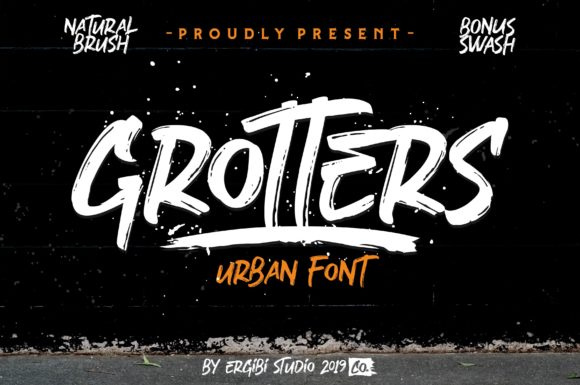
Grotters Font
Grotters Font is perfect for urban architecture firms, industrial design companies, modern manufacturing branding, contemporary construction signage, progressive engineering communications, robust technology interfaces, strong corporate identities, municipal infrastructure projects, solid business presentations, and reliable service organizations.
Grotters Font creates excitement because it embodies the structural strength and industrial reliability of modern engineering with its bold letterforms and construction-inspired character design. The font's sturdy proportions and industrial aesthetic instantly convey durability and professional competence, making any brand appear solid and authentically built for performance. Its carefully engineered structural details and robust character create an immediate sense of industrial confidence that captivates audiences seeking reliable solutions, durable quality, and products that celebrate the transformative power of strong engineering and industrial excellence.
This powerful typeface brings the authentic spirit of industrial design into contemporary business environments with remarkable strength and engineering appeal. Grotters Font Free Download provides industrial companies and engineering organizations with access to premium construction-inspired typography that embodies the essence of structural reliability and industrial craftsmanship. The font's robust design and industrial authenticity make it ideal for businesses seeking to establish meaningful connections with engineering audiences and industrial communities who appreciate structural integrity, manufacturing excellence, and the transformative power of solid construction principles. Whether you're creating branding for construction companies, designing materials for manufacturing firms, developing communications for engineering services, or producing content for industrial organizations, this font delivers the solid atmosphere that resonates with audiences seeking genuine reliability, structural quality, and the industrial confidence that comes from proven engineering excellence. Its versatile design ensures outstanding performance across both heavy-duty industrial applications and professional business communications while maintaining the character of authentic industrial typography. The font excels in applications requiring engineering credibility and industrial appeal. Manufacturing professionals appreciate its ability to convey structural strength while remaining highly functional for various industrial communications and engineering promotional materials. The comprehensive character set includes technical symbols and extensive international language support, making it perfect for global industrial brands and international engineering organizations seeking to communicate authentic structural values, manufacturing excellence, and industrial reliability to diverse worldwide engineering audiences who embrace solid construction, appreciate industrial craftsmanship, and seek the transformative power of genuine engineering excellence that builds lasting value through proven strength, reliable construction, and unwavering commitment to structural integrity and industrial quality.